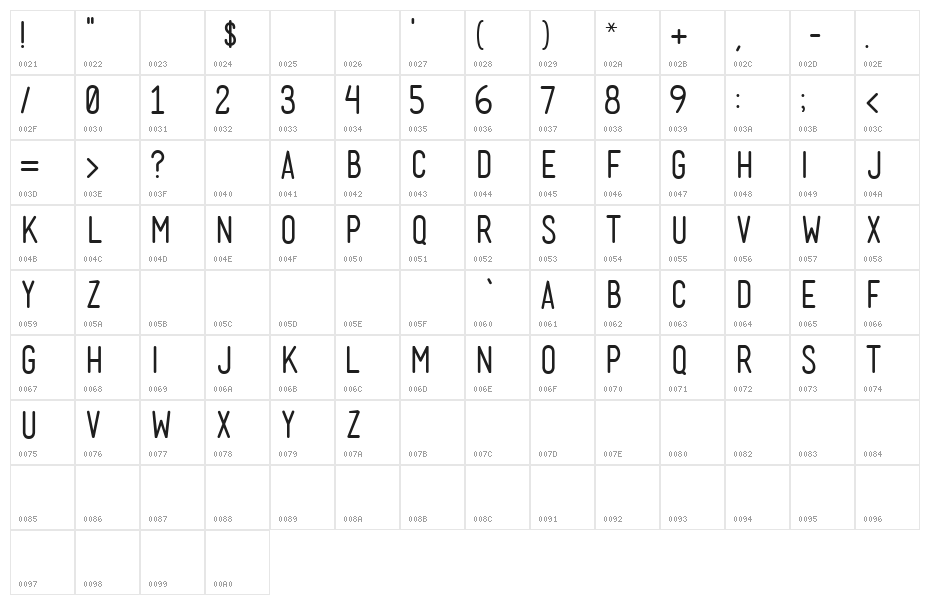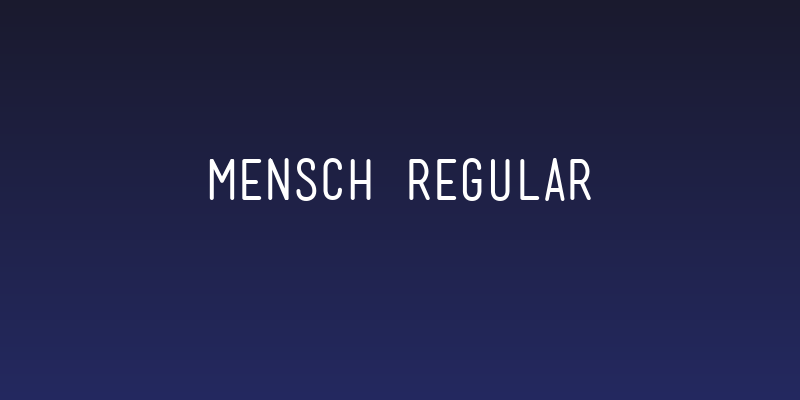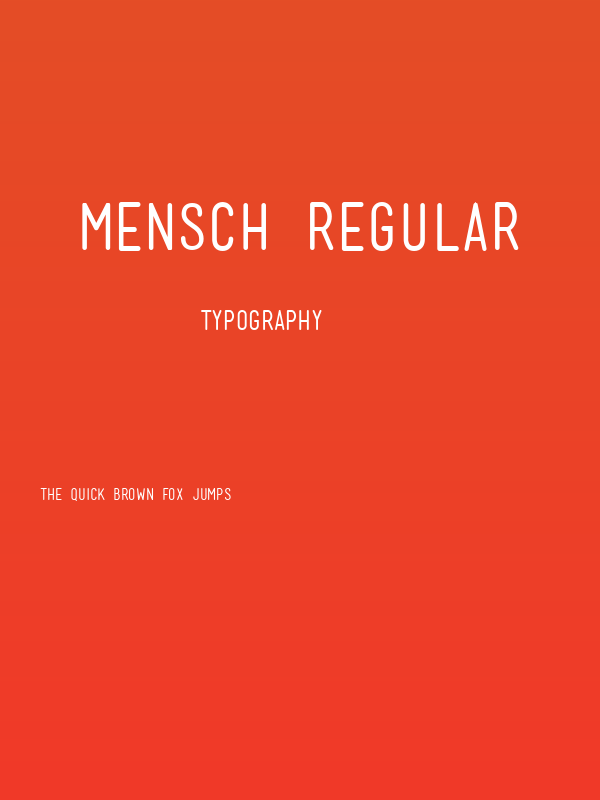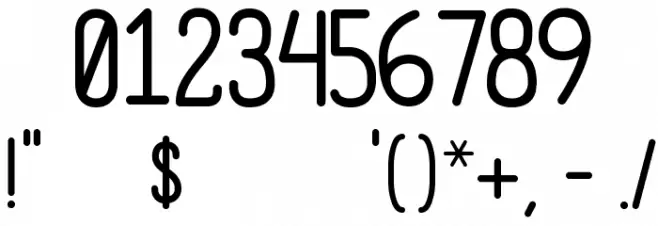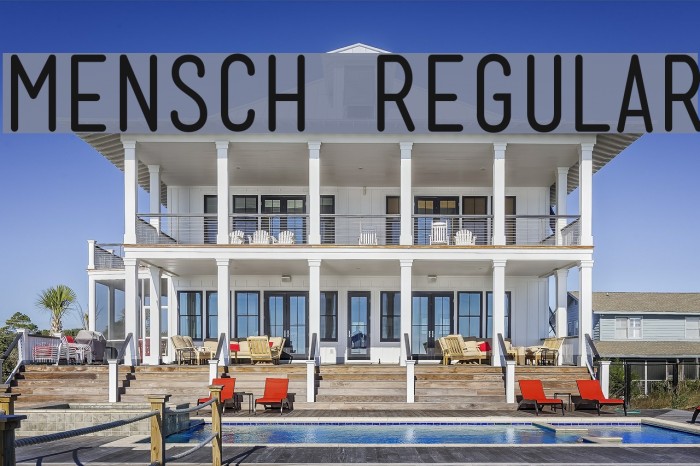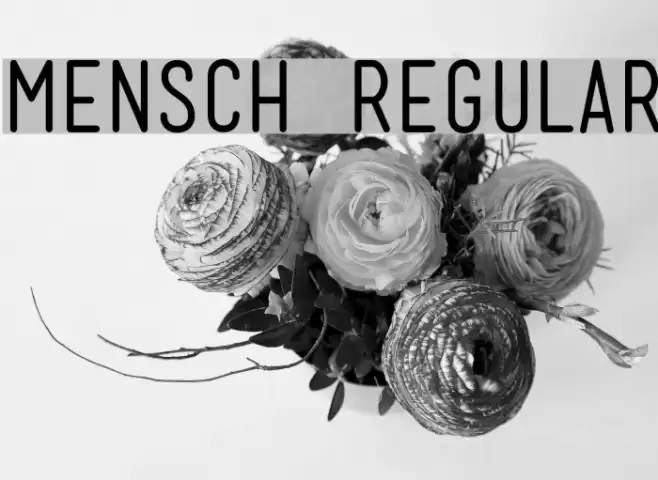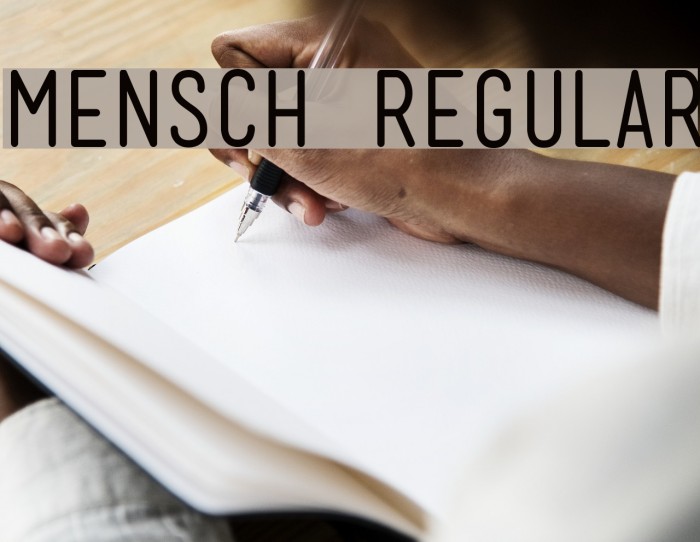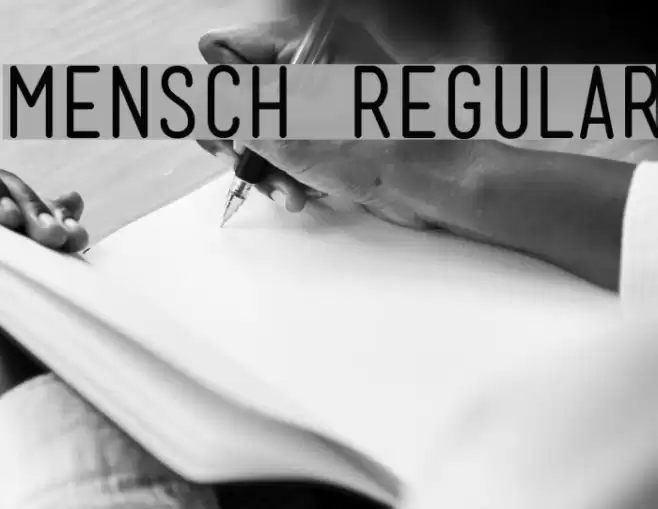
Mensch Regular Font
Mensch Regular Description
This font features a clean and modern sans-serif style with rounded edges, giving it a friendly and approachable appearance. The characters are evenly spaced, providing a balanced and harmonious look. The uppercase and lowercase letters maintain a consistent height, which enhances readability. The numerals are distinct and clear, making them easily distinguishable. Special characters are well-integrated, maintaining the overall aesthetic of the font. This typeface is versatile, suitable for various design applications due to its simplicity and clarity.